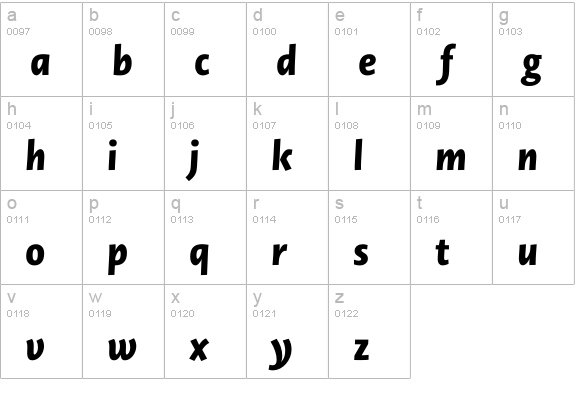
Novel Sans Pro ExtraBold It Font Details
Novel Sans Pro ExtraBold It is an extra-heavy, attention-grabbing variant in the Novel typeface family \xE2\x80\x94 well suited to high-impact headlines, posters, and bold branding.
Novel Sans Pro ExtraBold Italic font is a bold and dynamic typeface that exudes confidence and modernity. Its extra bold weight makes it perfect for headlines, titles, and other prominent text that demands attention. The italicized style adds a touch of elegance and flair, making it a versatile choice for a wide range of design projects. With its clean lines and contemporary aesthetic, Novel Sans Pro ExtraBold Italic font is sure to make a statement in any layout or composition. Whether used in print or digital media, this font will grab the viewer's eye and leave a lasting impression. Best of all, Novel Sans Pro ExtraBold Italic font is available for free download at FontsMarket.com. This means that you can easily access this high-quality typeface without any cost, making it a valuable addition to your font library. Don't miss out on the opportunity to enhance your designs with this bold and stylish font today.